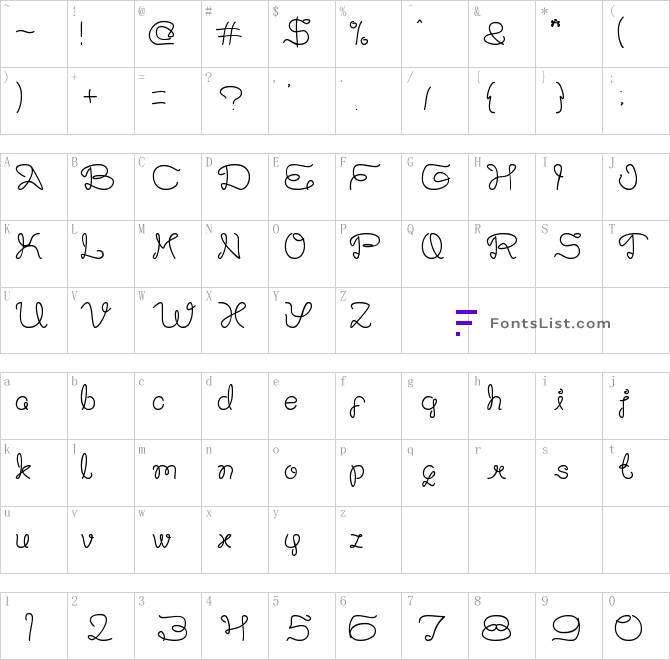
• Font Name:Art HEART
• Subfamily:Normal
• Subfamily:Art HEART:Version 1.00
• Full Name:Art HEART
• Version:Version 1.00 March 10, 2012, initial release
• PostScript:ArtHEART
Art-HEART.ttf is a very beautiful artistic font, Art-HEART.ttf is widely used in the design and printing of various books and pictures,Art-HEART.ttf has a strong visual impact,Art-HEART.ttf is a commonly used font in newspapers, magazines and books, and is used in posters, e-commerce Poster design, store design, logo design, font design and other fields.Art-HEART.